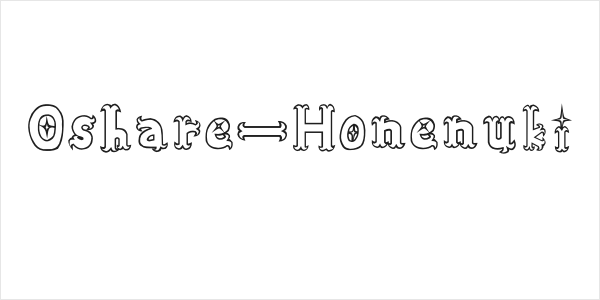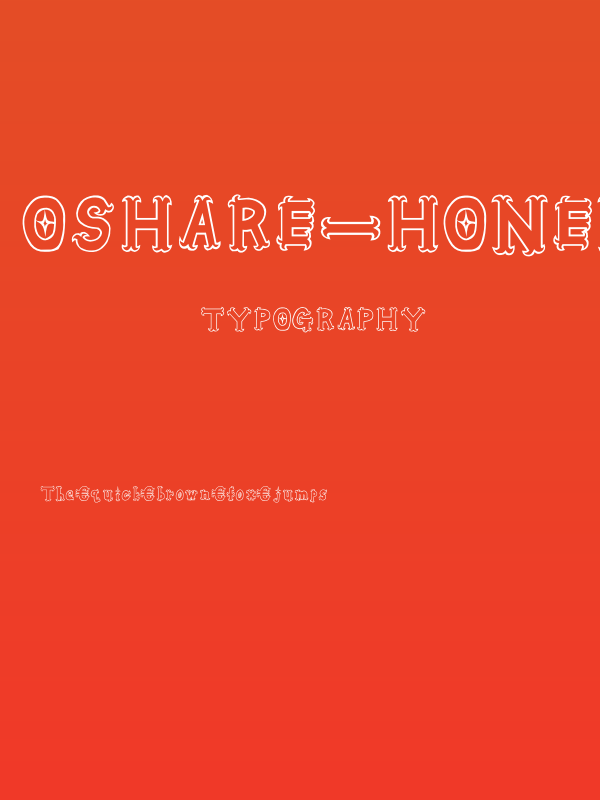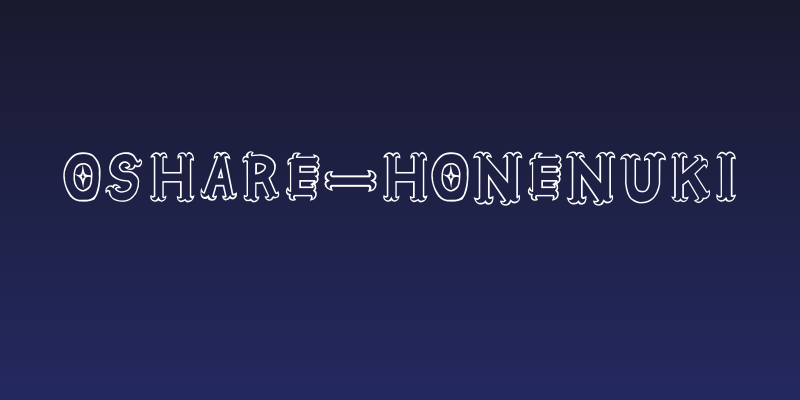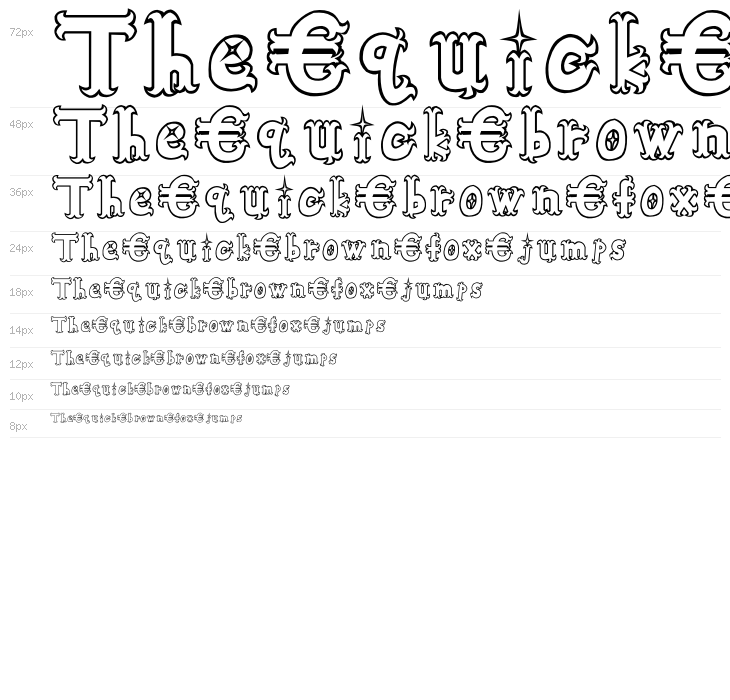
Oshare-Honenuki Font
Oshare-Honenuki Description
This font features a unique and decorative style with intricate details and flourishes that give it a whimsical and playful appearance. Each character is adorned with star-like embellishments and curved serifs that add a touch of elegance and fantasy. The font maintains a consistent stroke width, providing a balanced and harmonious look. The uppercase and lowercase letters are distinct yet cohesive, with numbers and special characters following the same ornate design. This font is ideal for projects that require a touch of creativity and flair, making it suitable for invitations, posters, and branding materials.
| Proposed Projects | Ideal for invitations, posters, branding materials, and creative projects. |